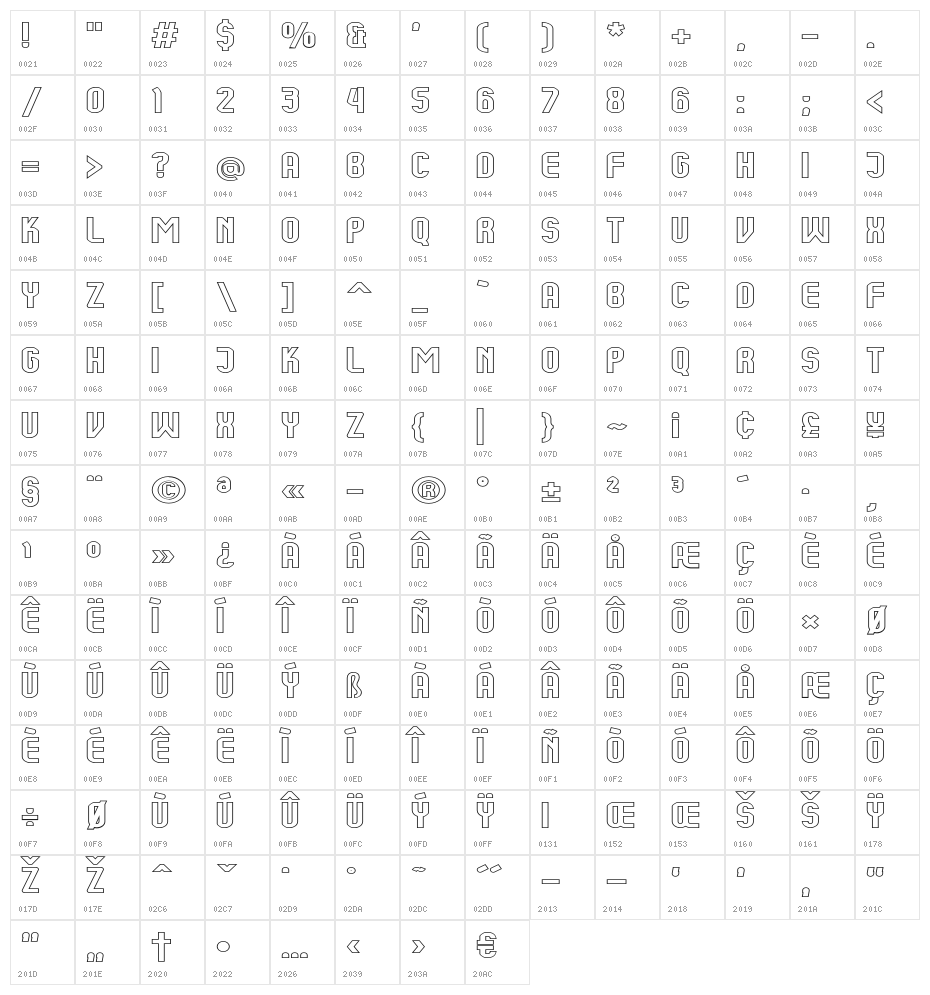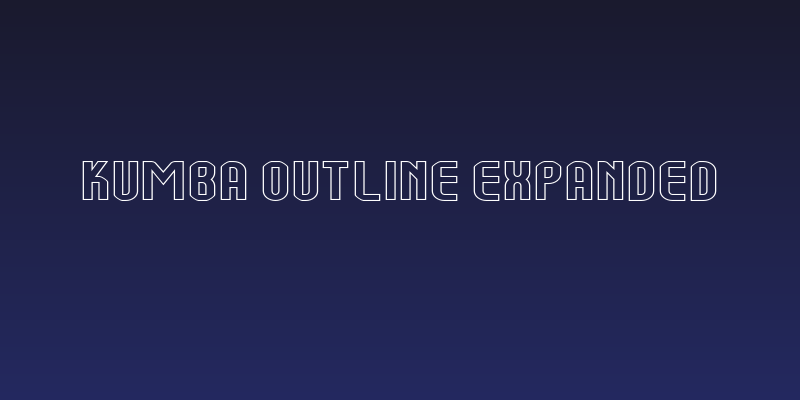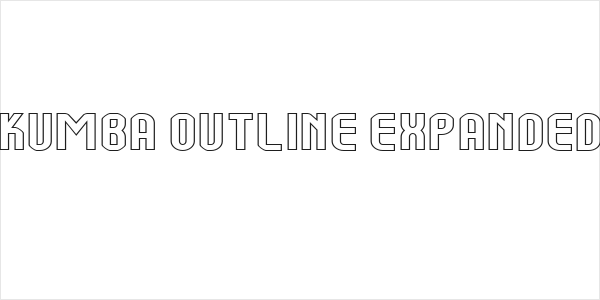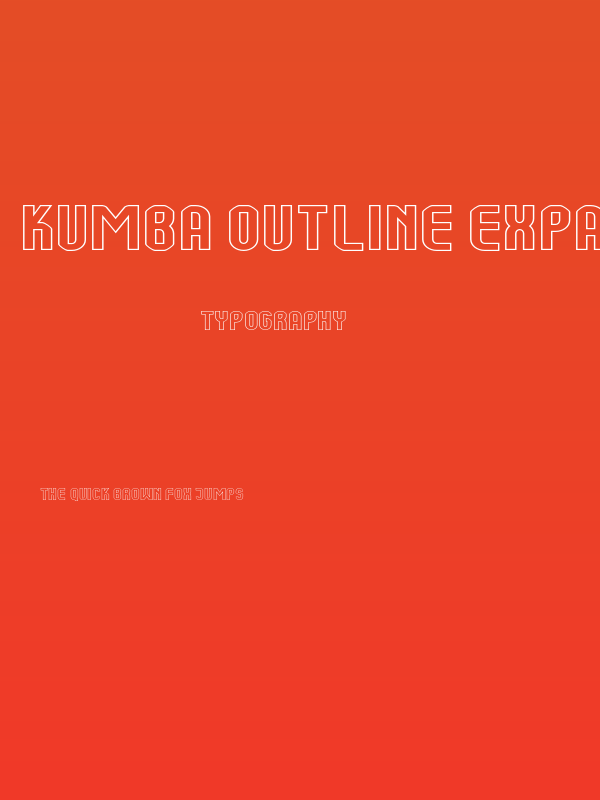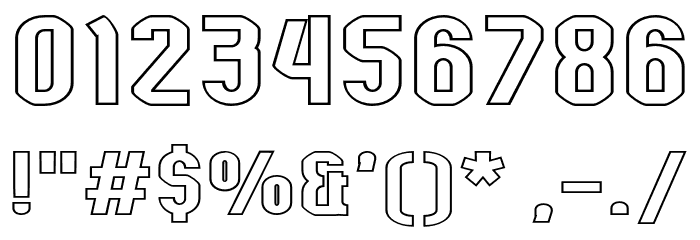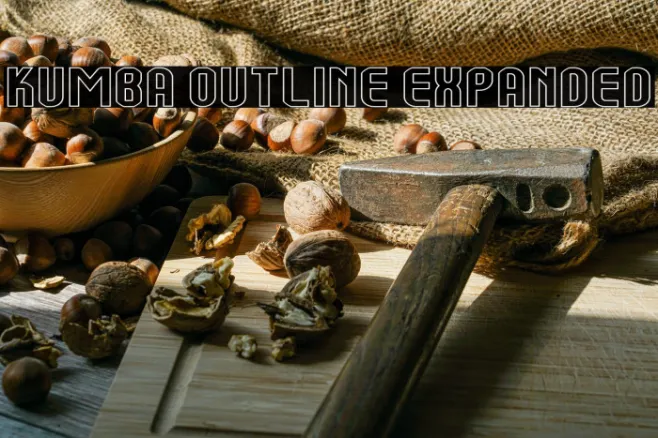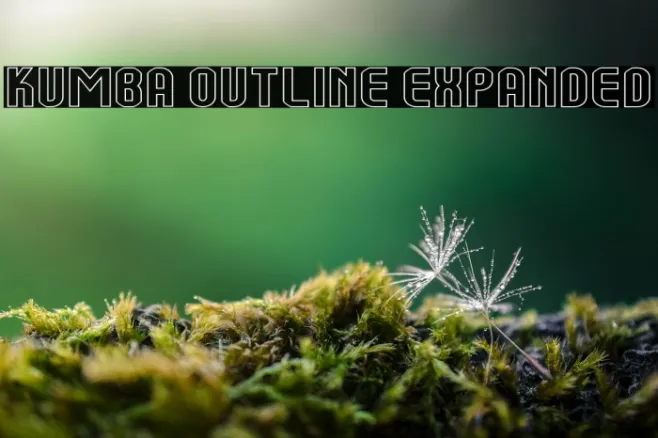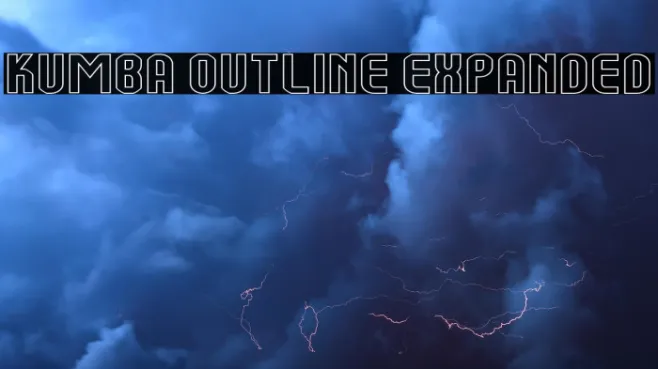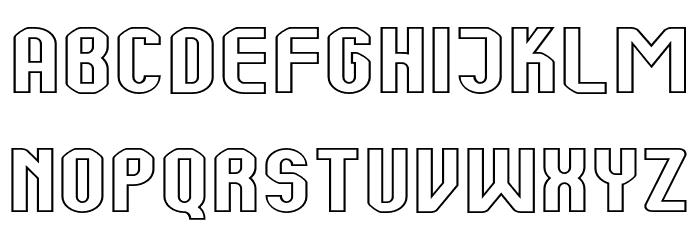
Kumba Outline Expanded Font
Kumba Outline Expanded Description
This font features a bold, geometric outline style with a modern and striking appearance. The characters are constructed with clean, straight lines and sharp angles, creating a sense of precision and clarity. The outline design gives it a unique, airy feel, making it stand out in any design. It maintains a consistent stroke width throughout, ensuring uniformity and balance across all characters. The uppercase and lowercase letters are well-proportioned, and the numerals are distinct and easily readable. Special characters are included, adding versatility to its use. This font is ideal for projects that require a contemporary and eye-catching look.
| Proposed Projects | Ideal for headlines, posters, branding, and any design requiring a bold statement. |